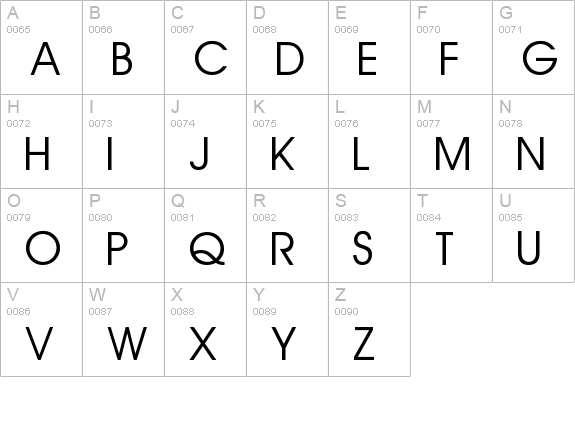
Aerolinea font is a modern and stylish typeface that exudes elegance and sophistication. Its sleek lines and contemporary design make it perfect for a wide range of projects, from branding to editorial design. The font strikes the perfect balance between professionalism and creativity, making it a versatile choice for any designer looking to make a statement. What sets Aerolinea font apart is not only its aesthetic appeal but also the fact that it is available for free download at FontsMarket.com. This means that you can access this high-quality font without any cost, making it an ideal choice for both personal and commercial use. With its clean and sharp letterforms, Aerolinea font is sure to elevate your designs and leave a lasting impression on your audience. Download it today and take your projects to the next level with this exceptional typeface.